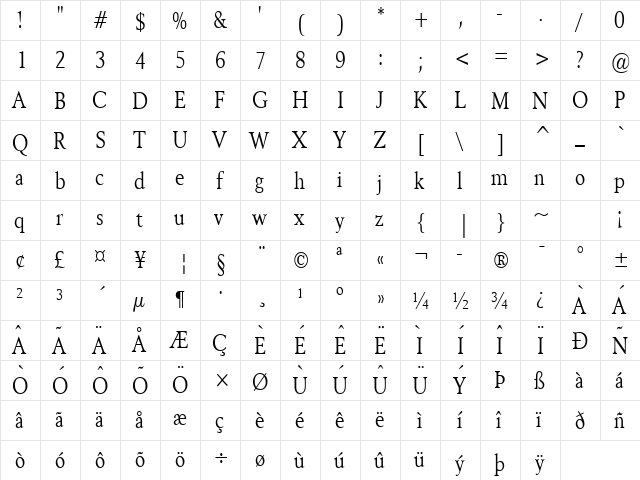
Revive 8 Condensed Normal
Design Context for Revive 8 Condensed Typeface
Revive 8 Condensed offers clean, dependable letterforms without strong stylistic allegiance, making it a practical choice for designers who need flexibility. Its narrow stance lets it pack a punch even in space-constrained designs.